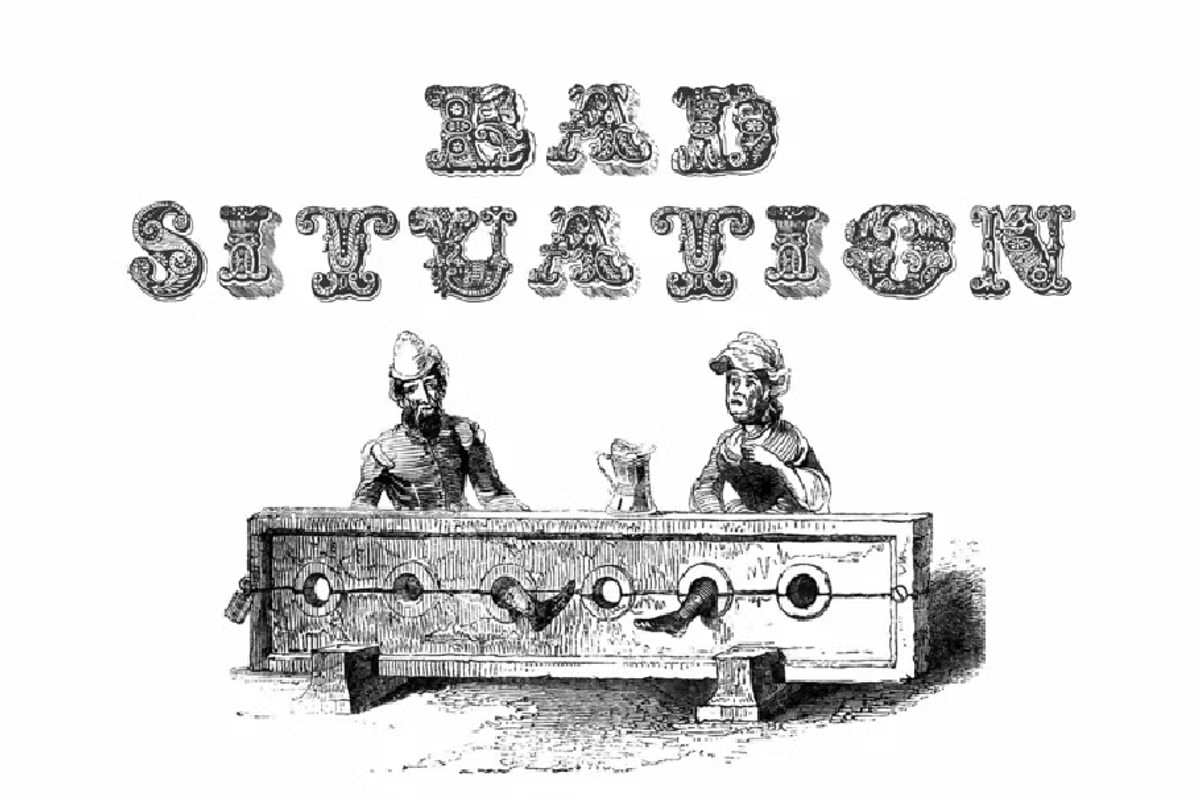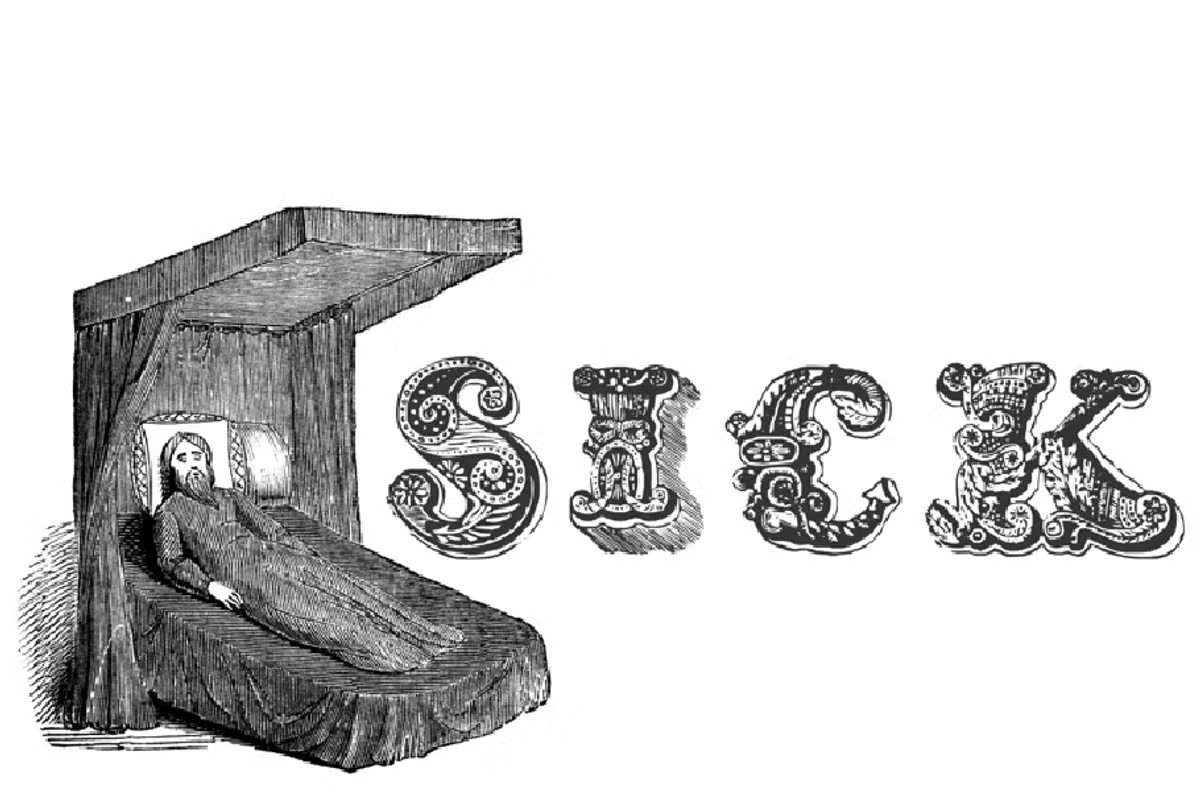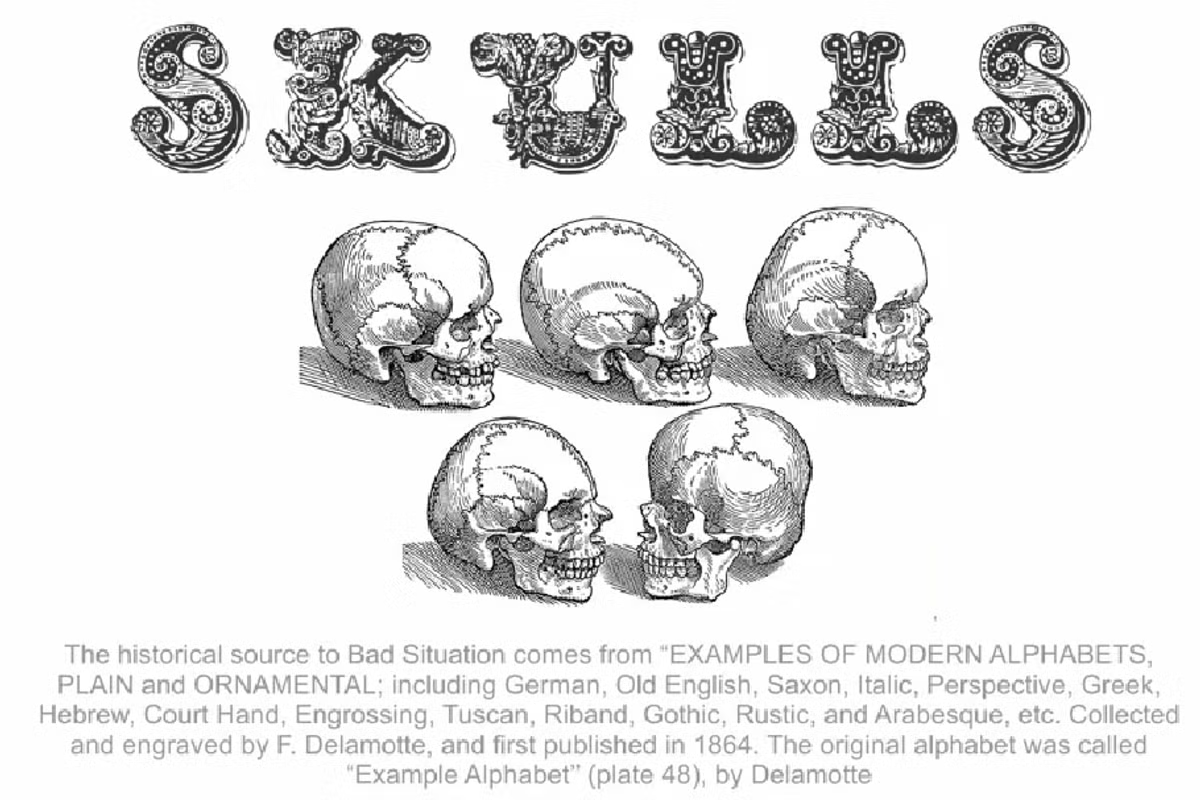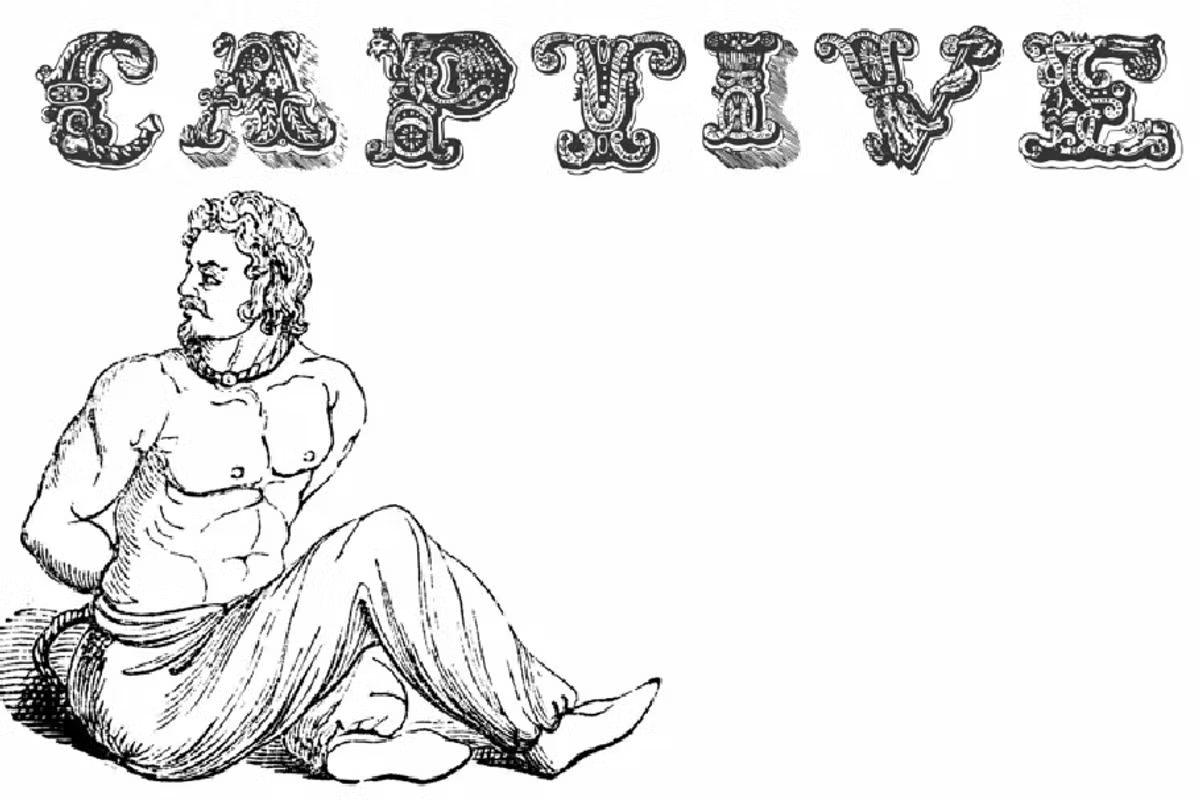
Bad Situation
Font Family by Intellecta Design
The historical source to Bad Situation comes from “EXAMPLES OF MODERN ALPHABETS, PLAIN and ORNAMENTAL; including German, Old English, Saxon, Italic, Perspective, Greek, Hebrew, Court Hand, Engrossing, Tuscan, Riband, Gothic, Rustic, and Arabesque, Collected and engraved by F. Delamotte, and first published in 1864. The original alphabetis at the plate 48, by Delamotte.